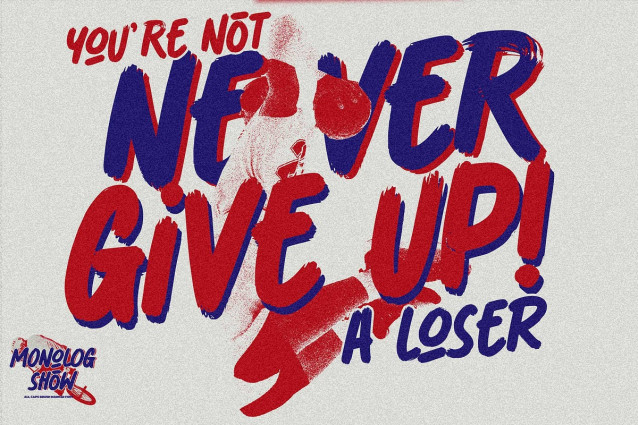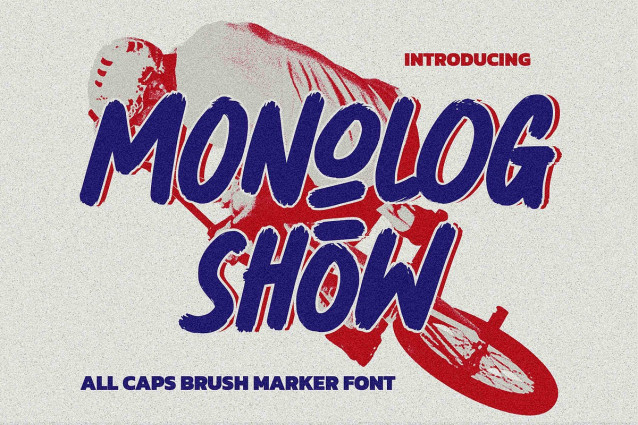
Monolog Show Font
Monolog Show Font is a bold, high-energy brush marker typeface crafted for designs that demand power, motion, and attitude. With rough edges, dynamic strokes, and an authentic hand-drawn feel, this font brings an instant burst of intensity to any visual project.
Designed to capture raw urban expression, MONOLOG SHOW delivers a fast, aggressive look—perfect for compositions that need a loud, sporty, and rebellious edge. Each letter is charged with movement, making it ideal for impactful headlines and attention-grabbing layouts.